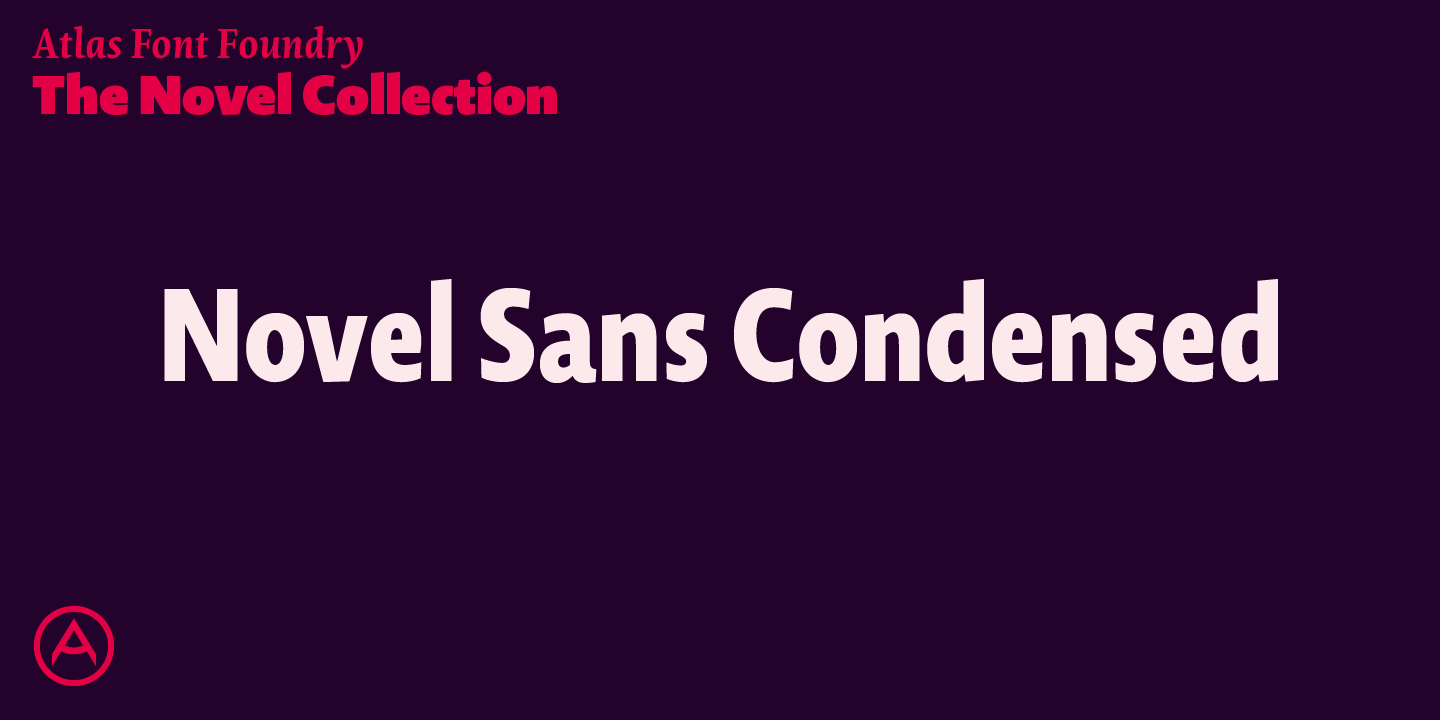
Novel Sans Condensed Pro Font is perfect for newspaper layouts, magazine column designs, corporate annual reports, technical documentation, data-heavy presentations, space-efficient signage, multilingual publications, mobile app interfaces, professional dashboards, and intensive text applications. This optimized condensed typeface excels in applications where maximum information density, professional clarity, and space efficiency need to be communicated with exceptional readability and typographic sophistication.
Novel Sans Condensed Pro Font is exciting because it masterfully balances condensed efficiency with outstanding legibility, delivering maximum content capacity without sacrificing reading comfort. Its precisely engineered letterforms and optimized character spacing ensure exceptional performance in dense text environments while maintaining professional elegance. The font's distinctive condensed proportions and advanced OpenType features make it particularly compelling for brands seeking to communicate efficiency, professionalism, and information density in their complex document systems and data-rich communications.
The Novel Sans Condensed Pro Font family includes comprehensive weight variations: Thin, Light, Regular, Medium, Bold, and Black, along with their corresponding italic styles that maintain optimal condensed spacing while offering complete typographic flexibility. Each weight preserves the characteristic space-efficient proportions while providing varying emphasis levels, giving designers complete control over information hierarchy in professional publishing environments.
For designers managing complex layouts or information-dense projects, Novel Sans Condensed Pro Font Free Download offers unparalleled efficiency with professional typography standards. Whether you're developing corporate publications, technical manuals, or data visualization interfaces, this sophisticated typeface provides the perfect foundation for maximizing content while maintaining readability. The font's extensive character set includes advanced OpenType features and comprehensive language support that enhance professional design applications and global communication requirements.